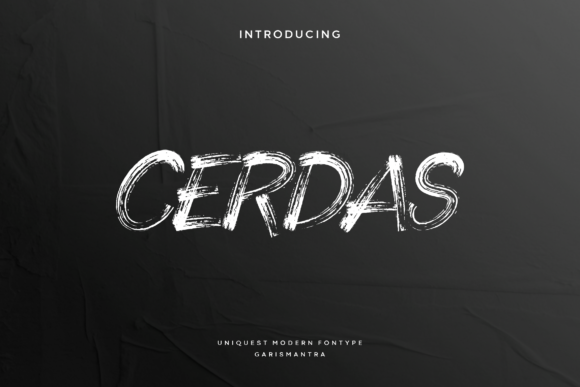
Cerdas Font: Elevate Your Designs with a Fresh and Edgy Brush Font
In the world of design, fonts play a crucial role in conveying the tone and aesthetic of a project. For designers and crafters looking to add a touch of attitude and authenticity to their work, Cerdas Font is an excellent choice. This brush font with an all-caps style is perfect for creating unique and eye-catching designs that stand out from the crowd.
What Makes Cerdas Font Special?
Cerdas Font boasts quick-dry strokes and a rough style that gives it a distinctive, hand-crafted look. Its all-caps style ensures that your text stands out, whether you’re using it for branding projects, art prints, product packaging, or as a text overlay on a great background image. The font’s edgy texture adds a layer of depth and visual interest, making it perfect for designers who want to create bold and attention-grabbing designs.
Perfect for Branding Projects
Branding is all about creating a unique identity that resonates with your target audience. Cerdas Font is an excellent choice for branding projects because of its fresh and edgy look. The font’s rough texture and quick-dry strokes give it a authentic feel that can help your brand stand out in a crowded market. Whether you’re designing a logo, business card, or website, Cerdas Font can add a touch of personality and attitude to your design.
Art Prints with an Edge
For artists and designers who want to create stunning art prints, Cerdas Font is a great choice. The font’s rough texture and edgy look make it perfect for creating art prints with a bold and eye-catching style. Whether you’re designing a poster, flyer, or brochure, Cerdas Font can add a touch of attitude and sophistication to your design.
Product Packaging with a Personal Touch
Product packaging is an essential part of the design process, and Cerdas Font can help you create packaging that stands out on store shelves. The font’s unique texture and edgy look make it perfect for creating labels, tags, and other packaging materials that require a personal touch. Whether you’re designing packaging for a food product, cosmetic, or other item, Cerdas Font can add a touch of authenticity and style to your design.
Text Overlay with Attitude
Cerdas Font is also perfect for use as a text overlay on a great background image. The font’s bold and edgy look makes it easy to read, even on busy backgrounds. Whether you’re designing a social media graphic, website header, or other visual element, Cerdas Font can add a touch of attitude and style to your design.
Why Choose Cerdas Font?
So why choose Cerdas Font for your design projects? Here are just a few reasons:
- Unique texture: Cerdas Font’s rough texture and quick-dry strokes give it a distinctive, hand-crafted look that sets it apart from other fonts.
- All-caps style: The font’s all-caps style ensures that your text stands out, whether you’re using it for headings, titles, or other design elements.
- Fresh and edgy: Cerdas Font’s edgy texture and bold style make it perfect for creating designs that are fresh and attention-grabbing.
- Authentic feel: The font’s authentic feel makes it perfect for designers who want to create designs that are genuine and unique.
Get Creative with Cerdas Font
If you’re looking for a font that can add a touch of attitude and authenticity to your design projects, Cerdas Font is an excellent choice. With its unique texture, all-caps style, and fresh and edgy look, this brush font is perfect for designers and crafters who want to create bold and eye-catching designs. So why wait? Download Cerdas Font today and start creating stunning designs that stand out from the crowd!